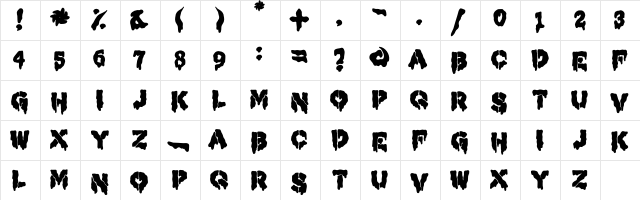
MXCLOAK Regular
| Designer | Afterthem Studio |
Design Context for MXCLOAK Typeface
MXCLOAK is a composed and adaptable typeface that performs quietly and consistently across a wide range of design contexts.